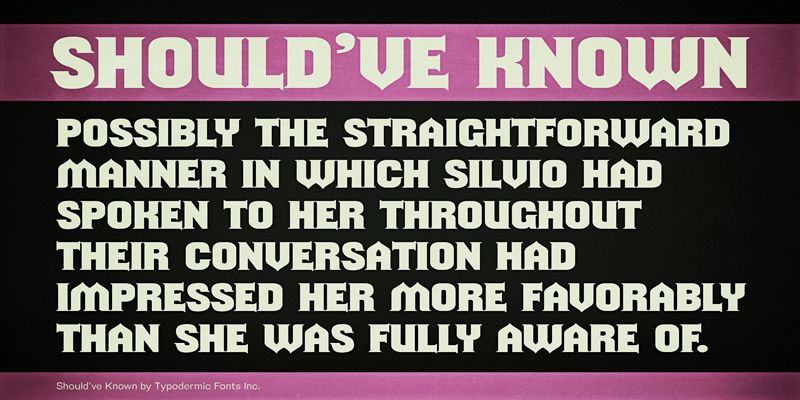
Should’ve Known is an alternate-universe horse-opera headline honker. These fonts include a license that allows free commercial use: sometimes referred to as a desktop license. This allows you to install the fonts on a computer and use them to create posters, web graphics, game graphics, t-shirts, videos, signs, logos and more. Read the license agreement for details. If you'd like to embed these fonts in an app, ebook, on the web or anything that's not covered by the desktop license agreement, visit the link below. You'll find distributors who offer different types of licenses or you can contact me for help. http://typodermicfonts.com/shouldve-known/ |